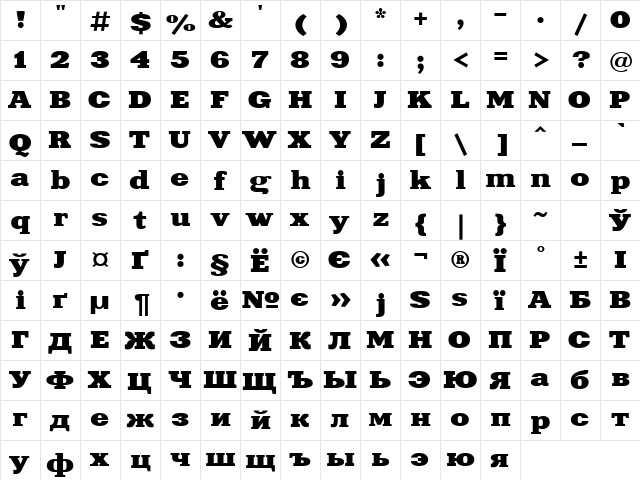
XeniaExtendedC Bold
Design Context for XeniaExtendedC Typeface
XeniaExtendedC offers clean, dependable letterforms without strong stylistic allegiance, making it a practical choice for designers who need flexibility. Its bold stroke weight gives it real presence on the page.